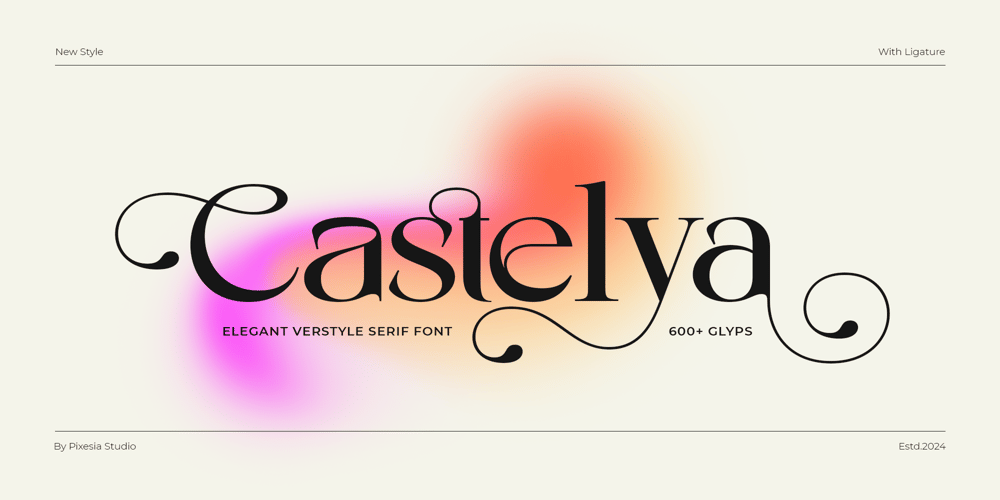
Castelya Font Family was designed by Abul Almaududi and published by Pixesia Studio. Castelya contains 1 styles and family package options. Introducing Castelya – Classic Luxury Serif FontCastelya is a stunning serif typeface that embodies sophistication and charm, designed to elevate your designs with its refined elegance. With a nod to timeless beauty and a touch of luxury modern flair, Castelya Font strikes the perfect balance between classic appeal and contemporary style.Castelya is perfectly suited for branding, logotypes, wedding invitations, romantic quotes, labels, social media posts, advertisements, product packaging, product designs, label, photography, watermark, invitation, stationery and any projects seeking premium quality and luxury feel.FEATURES- Stylistic Alternates- Ligatures- Uppercase and Lowercase letters- Numbering and Punctuations- Works on PC or Mac- Simple Installation- PUA Encoded Characters – Easily accessible without additional design software.- Support Adobe Illustrator, Adobe Photoshop, Adobe InDesign, also works on Microsoft Word- Multilingual Support for 89 languages including Afrikaans, Albanian, Basque, Catalan, Danish, Dutch, English, Estonian, Faroese, Filipino, Finnish, French, Galician, German, Icelandic, Indonesian, Irish, Italian, Malay, Norwegian Bokmål, Portuguese, Spanish, Swahili, Swedish, ZuluHope you Like it.Thanks.